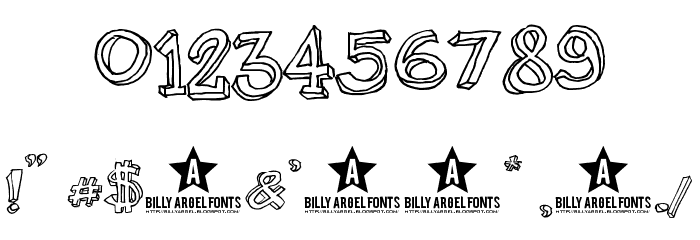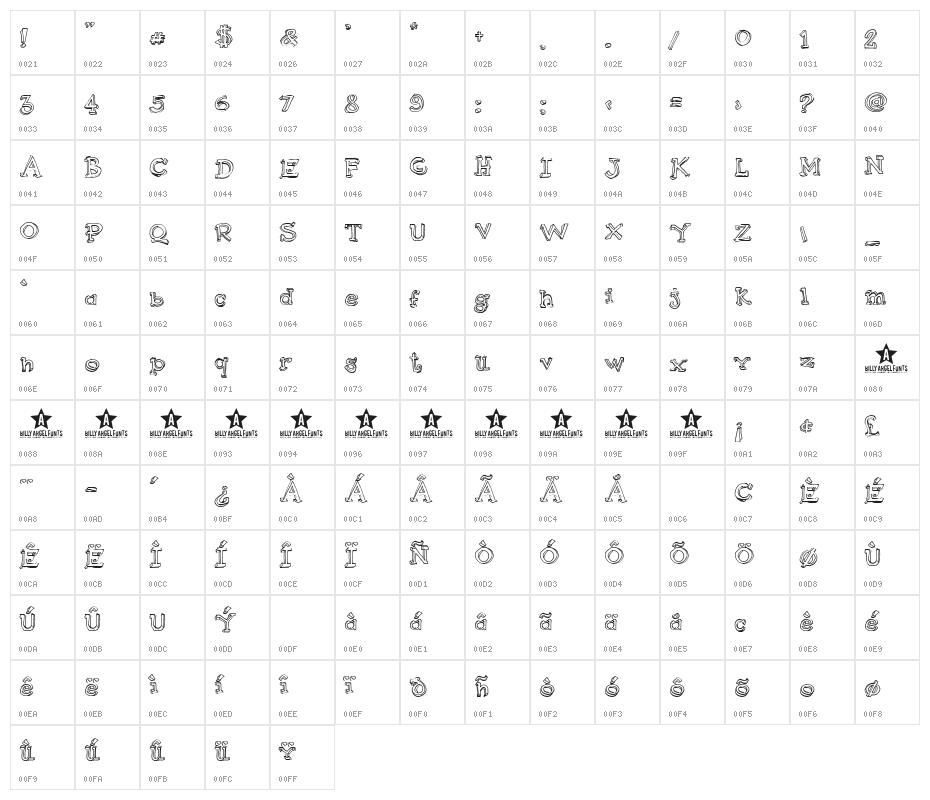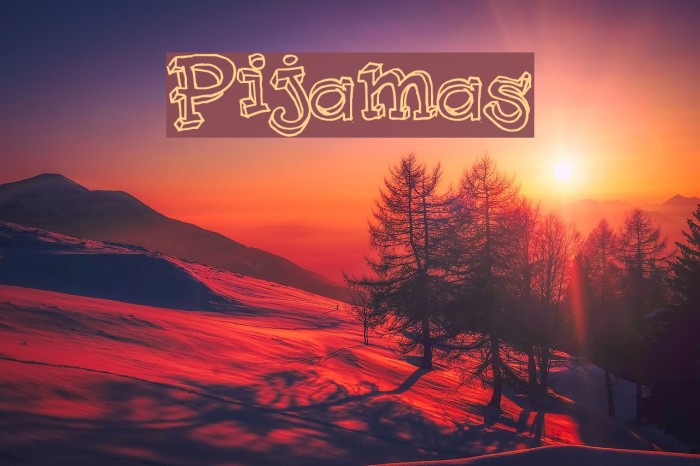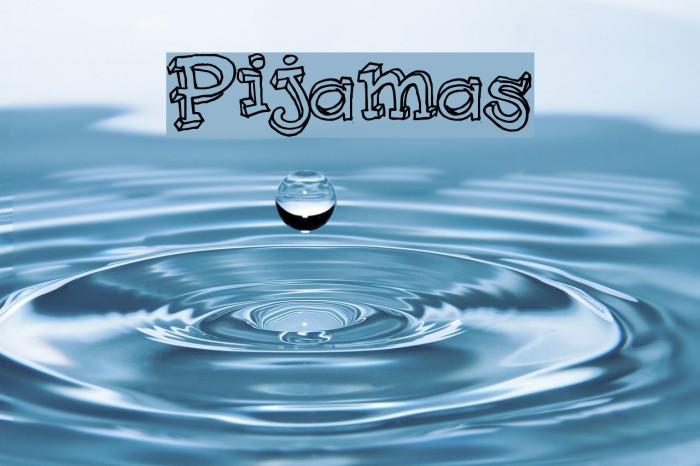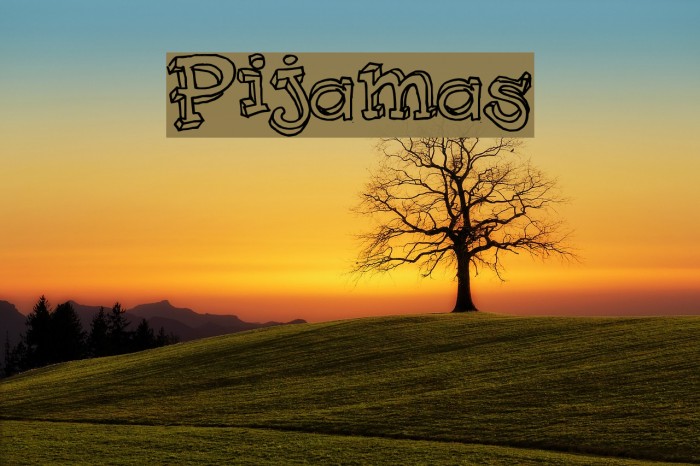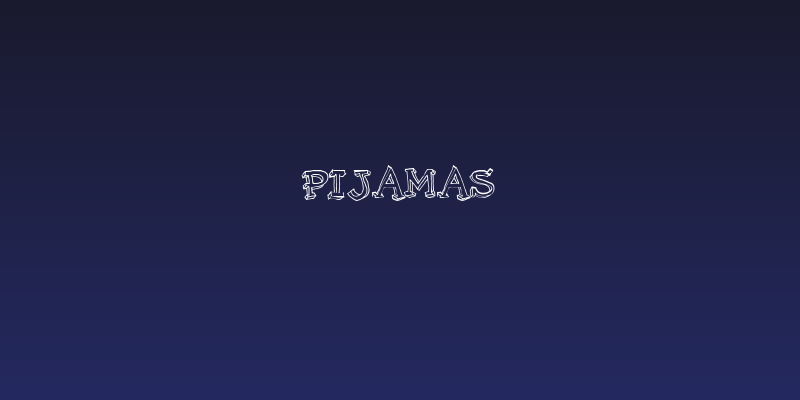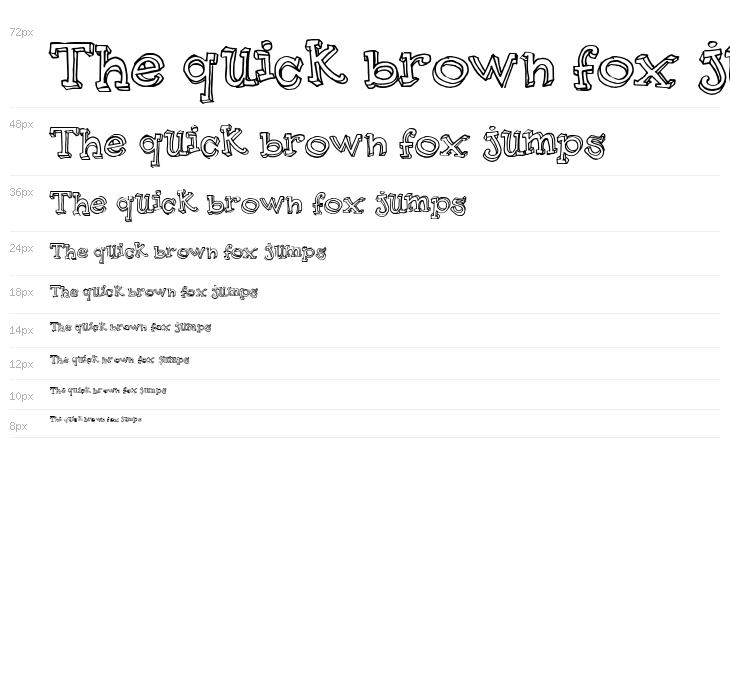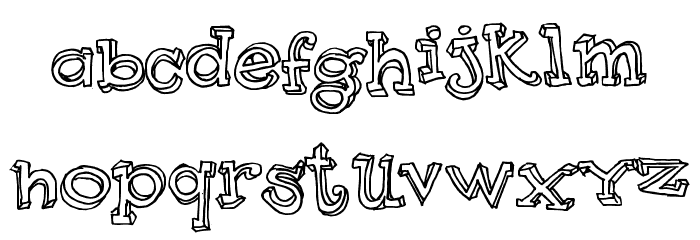
Pijamas Font
Pijamas Description
This font features a playful and whimsical design, characterized by its bold, hand-drawn appearance. Each letter is outlined with a thick stroke, giving it a three-dimensional effect. The irregular shapes and varying line thicknesses add to its quirky and informal style. The font is highly decorative, making it ideal for projects that require a fun and engaging look. It includes a full set of uppercase and lowercase letters, numbers, and a variety of special characters, all maintaining the same lively aesthetic.